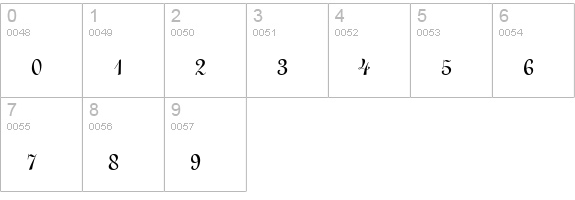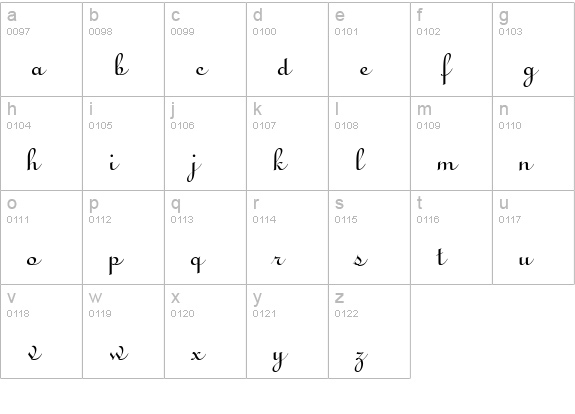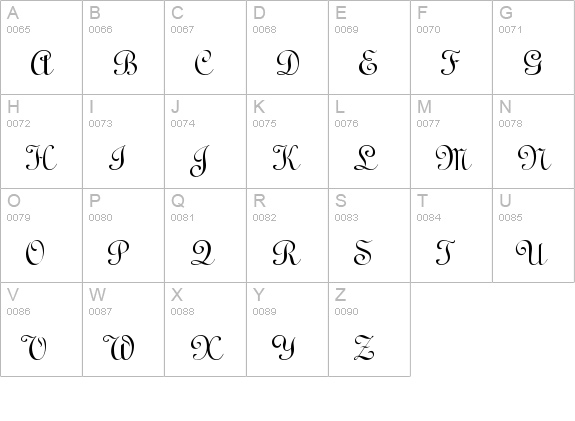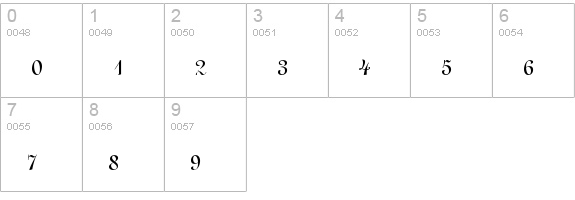
Monastery Script SSi Font Details
Monastery Script SSi font is a beautifully crafted typeface that exudes elegance and sophistication. Its intricate details and flowing curves make it perfect for luxurious branding, wedding invitations, and other high-end design projects. The font's classic yet modern style adds a touch of sophistication to any project it is used in. What makes Monastery Script SSi font even more appealing is that it is available for free download at FontsMarket.com. This means that you can easily access this stunning font and incorporate it into your designs without any cost. Don't miss out on this opportunity to enhance your projects with the timeless beauty of Monastery Script SSi font. Download it today and elevate your designs to the next level.